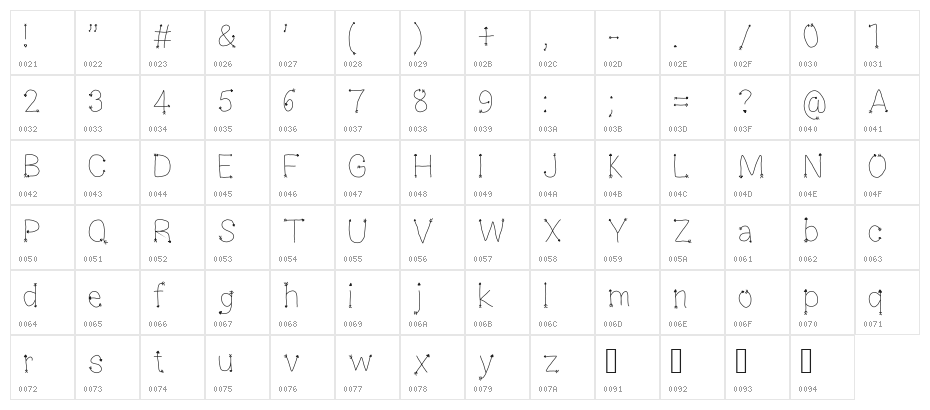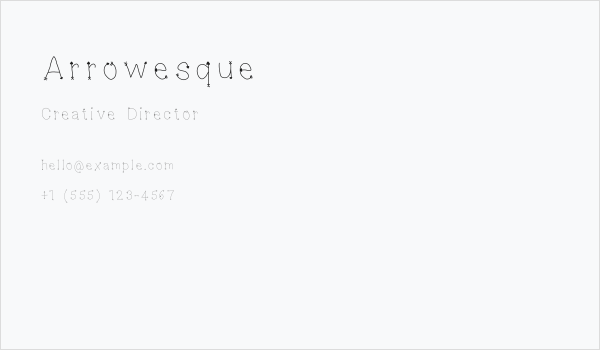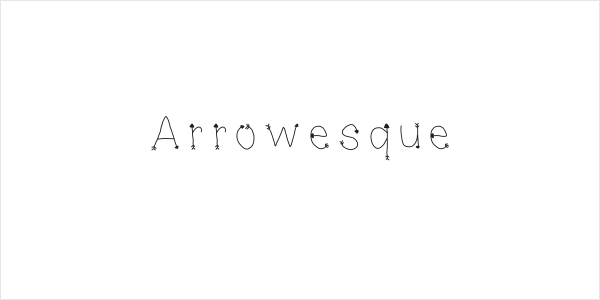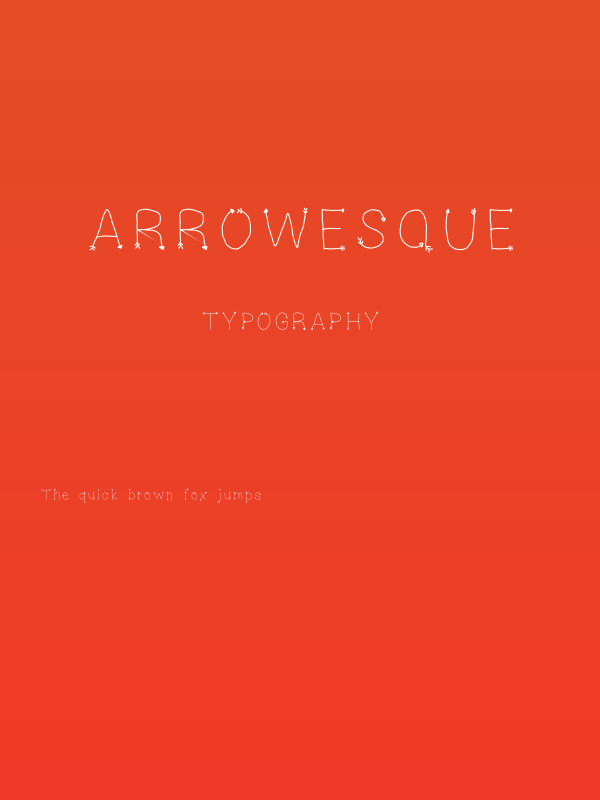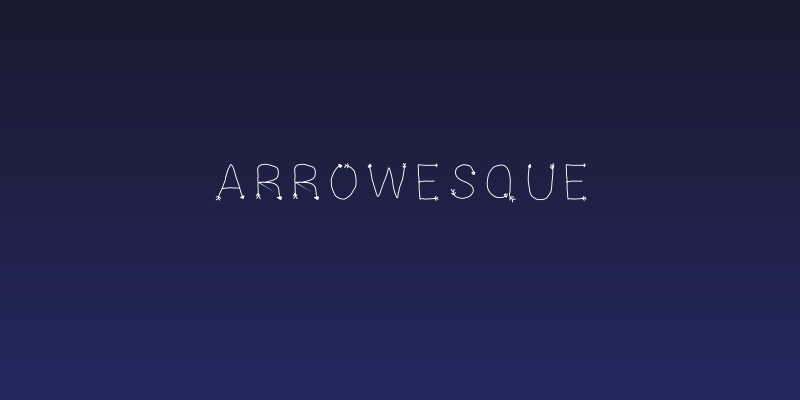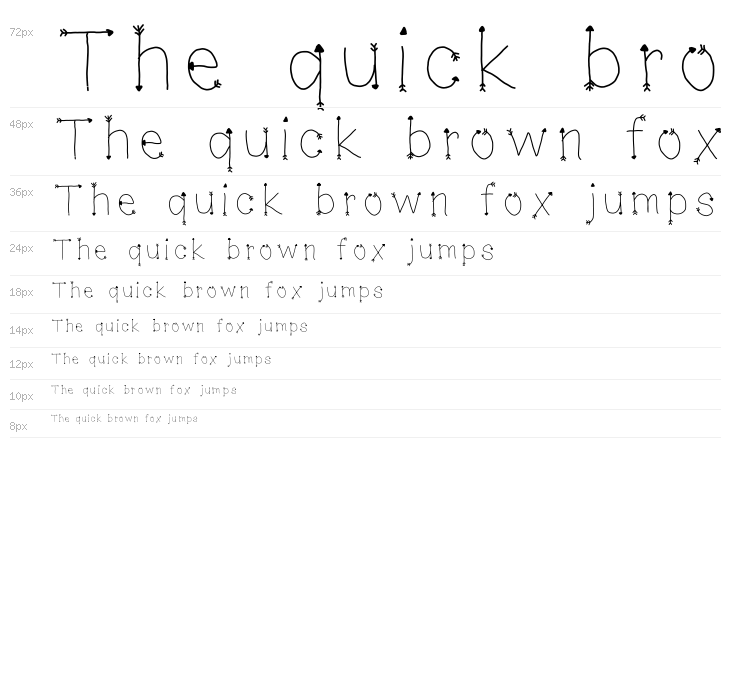
Arrowesque Font
Arrowesque Description
This font features a whimsical and playful design, where each character is crafted to resemble an arrow. The strokes are thin and delicate, with arrowheads and fletchings adorning the ends of each letter, number, and symbol. The overall appearance is light-hearted and imaginative, making it ideal for creative projects. The uppercase and lowercase letters maintain a consistent style, with slight variations in the arrow elements to differentiate them. Numbers and special characters follow the same thematic design, ensuring a cohesive look across all characters.
| Proposed Projects | Ideal for children's books, playful branding, creative posters, and whimsical invitations. |